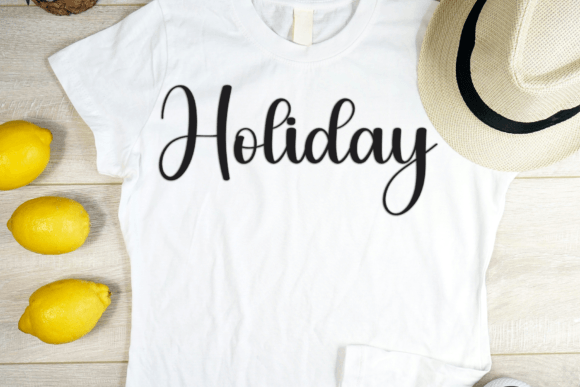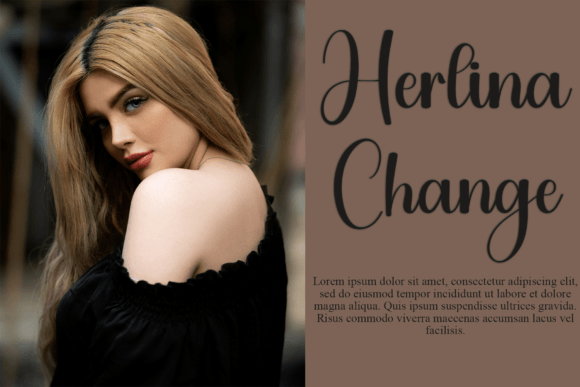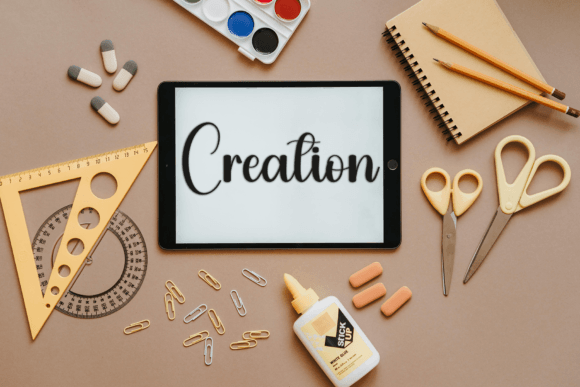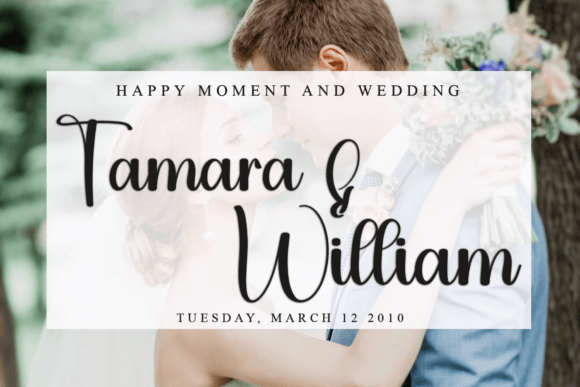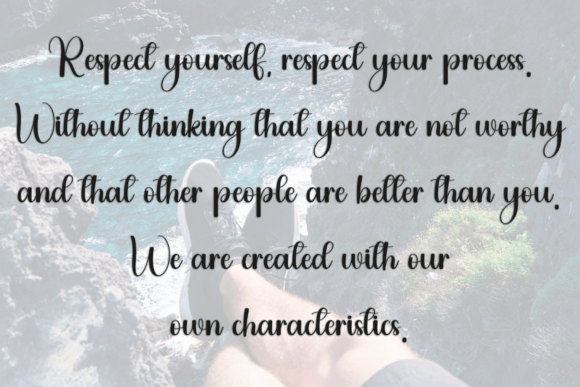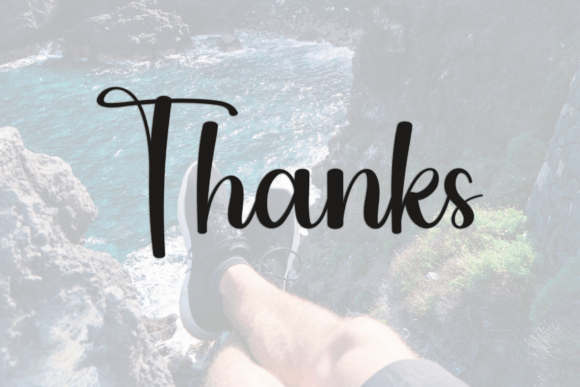
Discover the Elegance of Beachwood Font: A Lovely Script Font for Your Designs
Are you looking for a font that exudes elegance and class? Do you want to add a refreshing touch to your designs? Look no further than Beachwood Font, a lovely and delicate script font that is perfect for designers and crafters alike. In this article, we’ll dive into the features and benefits of Beachwood Font, and explore how it can elevate your designs to the next level.
What is Beachwood Font?
Beachwood Font is a beautiful script font that was particularly crafted for those who need a elegant and refreshing look to their designs. With its delicate strokes and flowing curves, Beachwood Font is perfect for creating sophisticated and eye-catching designs. Whether you’re working on a branding project, a wedding invitation, or a social media graphic, Beachwood Font is sure to make your design stand out.
Key Features of Beachwood Font
- Elegant and Delicate: Beachwood Font features delicate strokes and flowing curves that give it an elegant and refined look.
- Script Style: Beachwood Font is a script font that adds a touch of sophistication and class to any design.
- Refreshing Look: Beachwood Font has a refreshing and modern look that is perfect for designs that need a unique touch.
- High-Quality: Beachwood Font is a high-quality font that is designed to work perfectly in a variety of design applications.
Benefits of Using Beachwood Font
So why choose Beachwood Font for your designs? Here are just a few benefits of using this lovely script font:
- Adds Elegance: Beachwood Font adds an elegant touch to any design, making it perfect for high-end branding and luxury projects.
- Versatile: Beachwood Font is versatile and can be used in a variety of design applications, from print to digital.
- Easy to Read: Beachwood Font is easy to read, even at small sizes, making it perfect for body text and captions.
- Unique: Beachwood Font has a unique and refreshing look that will set your designs apart from the crowd.
How to Use Beachwood Font in Your Designs
Using Beachwood Font in your designs is easy. Here are a few tips to get you started:
- Pair with Bold Fonts: Pair Beachwood Font with bold fonts for a striking contrast that will make your design stand out.
- Use for Headings: Use Beachwood Font for headings and titles to add an elegant touch to your design.
- Add to Branding: Add Beachwood Font to your branding materials, such as logos and business cards, to create a sophisticated and professional look.
Tips and Tricks for Using Beachwood Font
Here are a few tips and tricks for using Beachwood Font:
- Play with Sizes: Play with different sizes to create visual interest and hierarchy in your design.
- Use in Combination with Other Fonts: Use Beachwood Font in combination with other fonts to create a unique and interesting look.